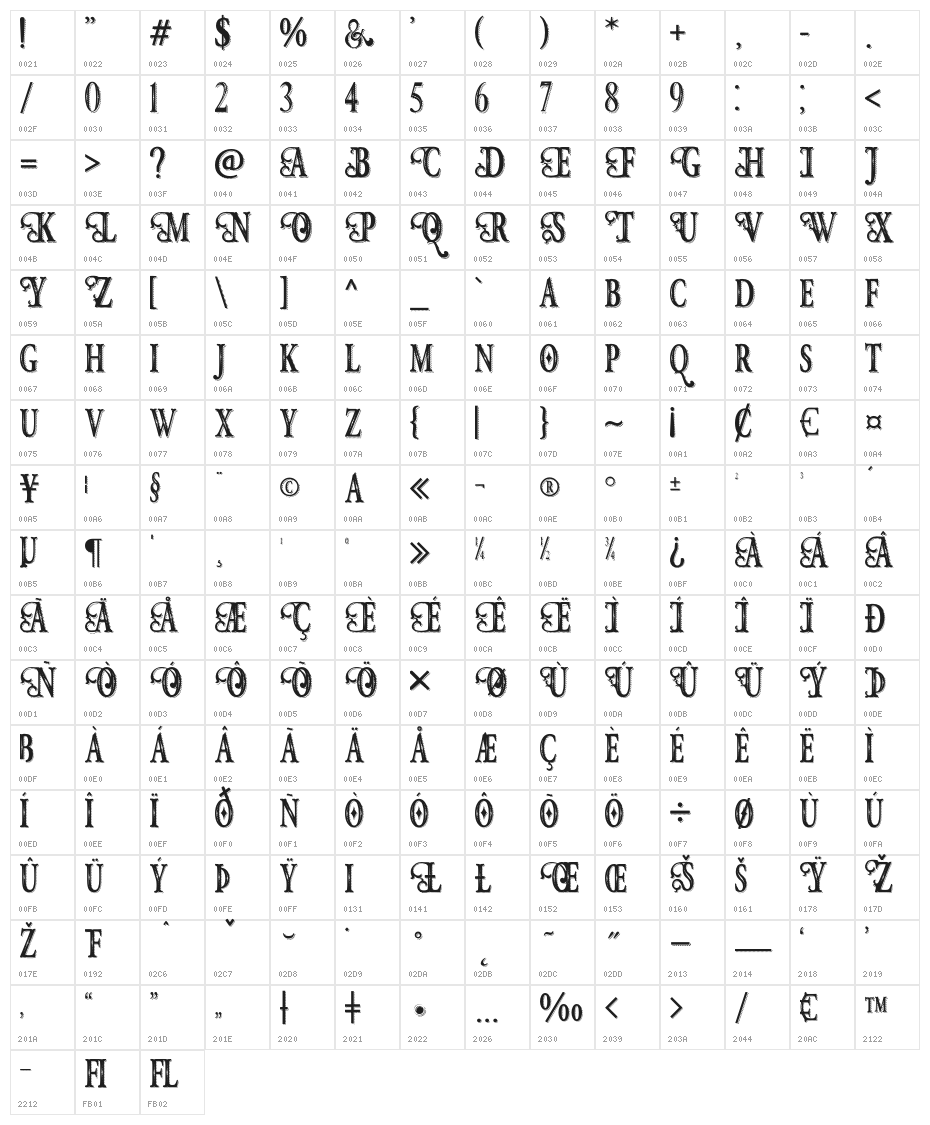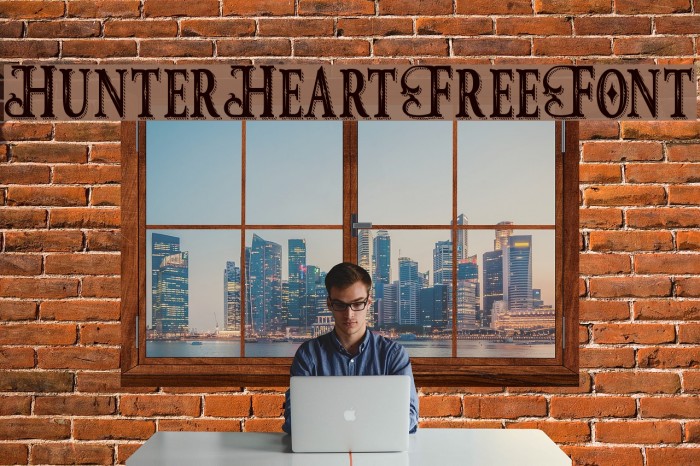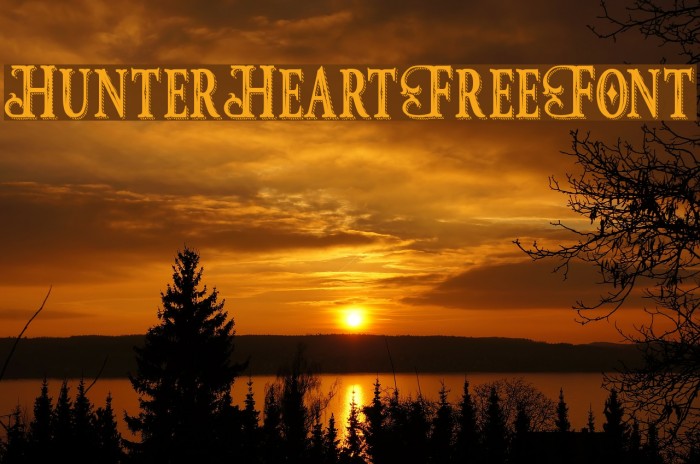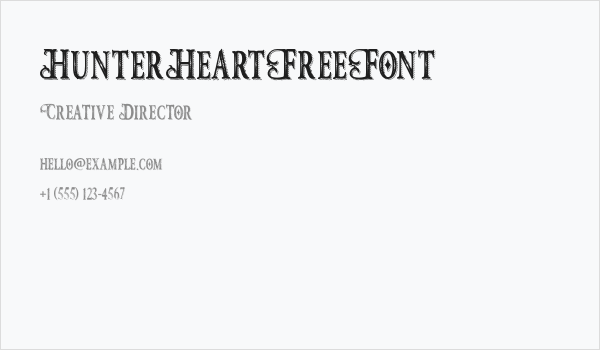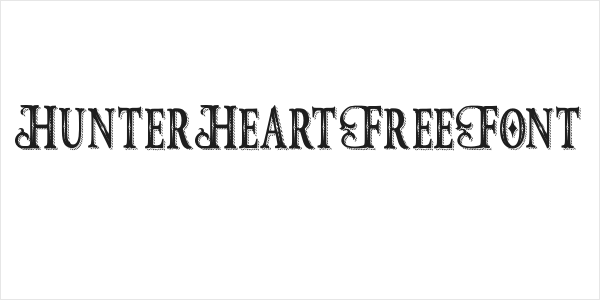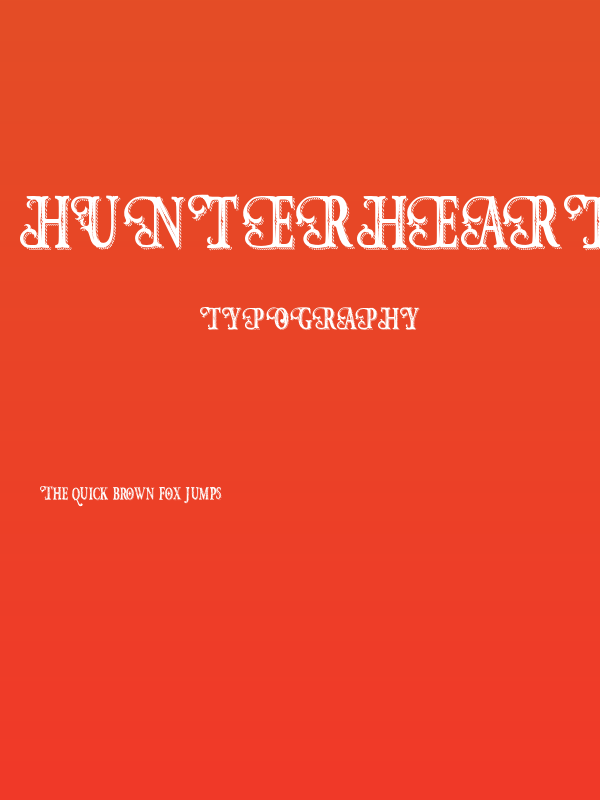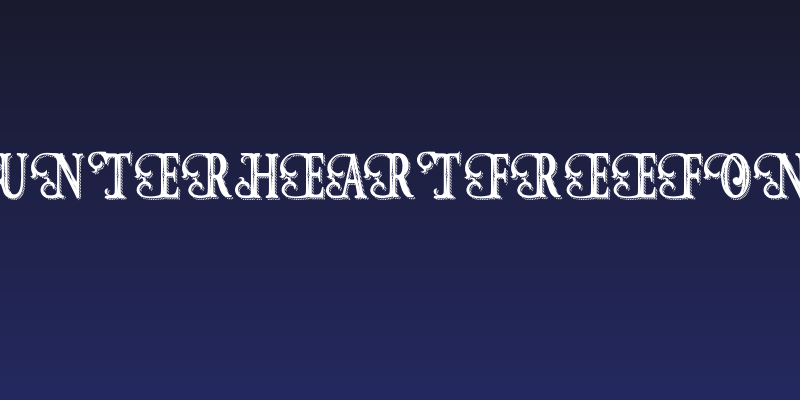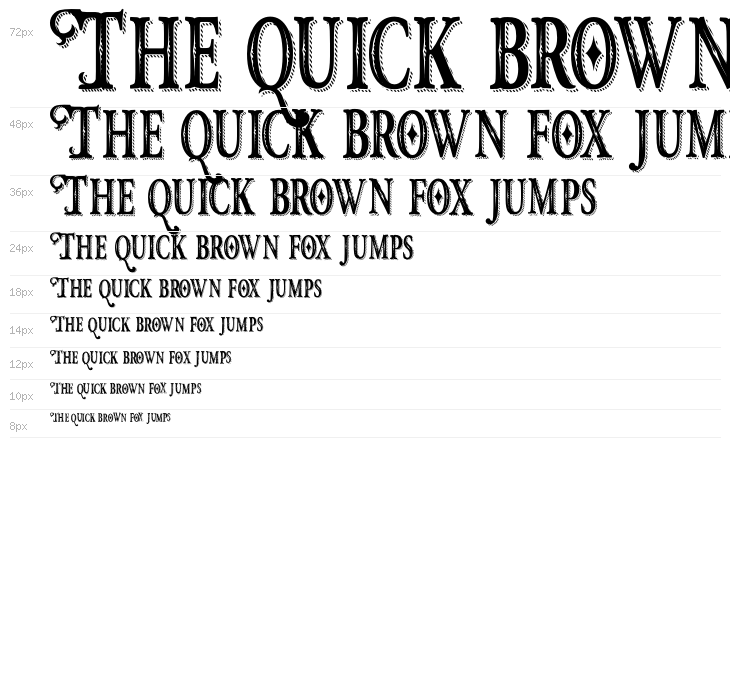
HunterHeartFreeFont Font
HunterHeartFreeFont Description
This font features a bold and decorative style with intricate detailing on each character. The uppercase letters have a unique flair, combining traditional serif elements with ornate embellishments, giving them a vintage and artistic appearance. The lowercase letters maintain a similar decorative style, ensuring consistency across the typeface. The numbers are bold and clear, making them suitable for display purposes. Special characters are designed with the same attention to detail, enhancing the overall aesthetic. The font's intricate design makes it ideal for projects that require a touch of elegance and creativity.
| Overall Style | Vintage, Decorative |
| Proposed Projects | Ideal for vintage-themed posters, artistic invitations, branding, and decorative headlines. |